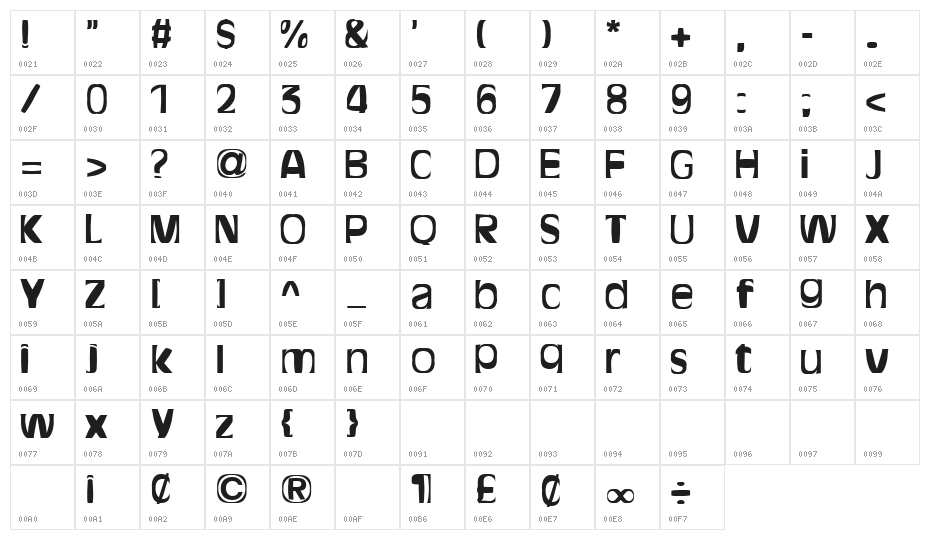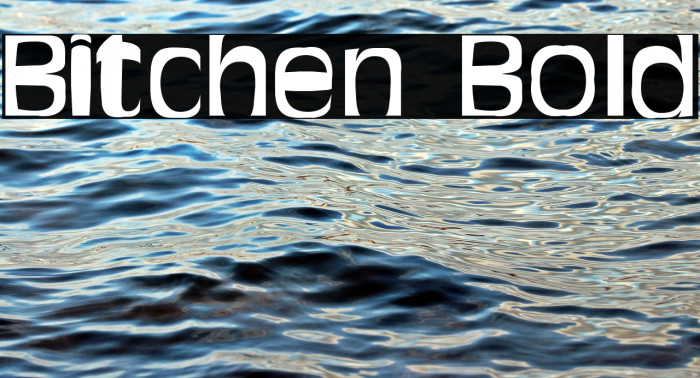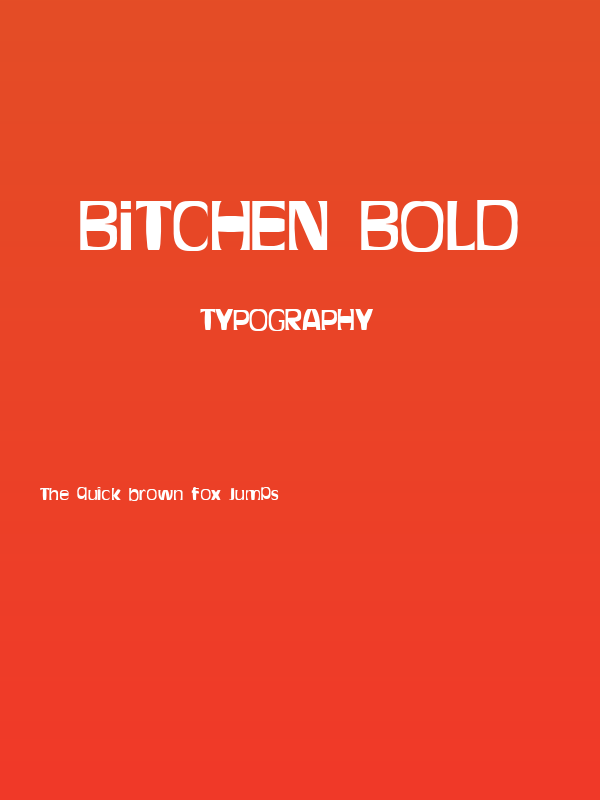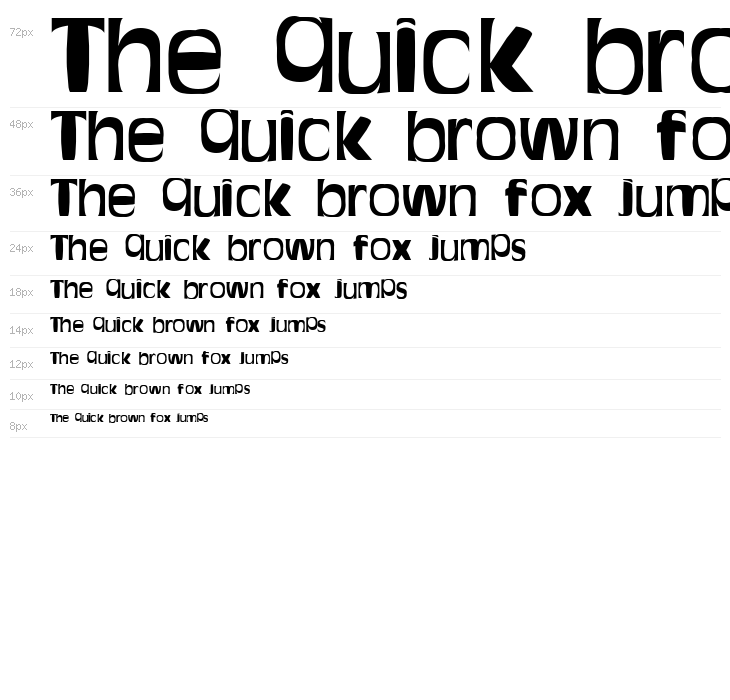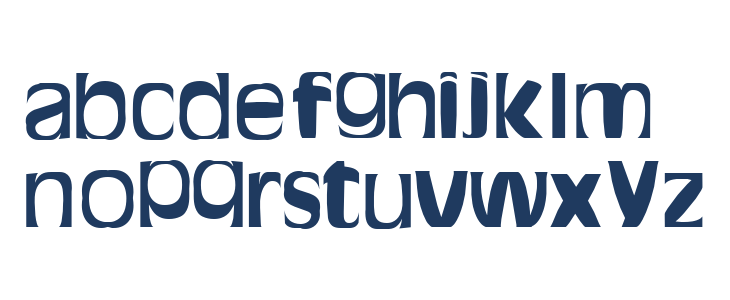
Bitchen Bold Font
Bitchen Bold Description
This font features a bold and dynamic style with a unique, slightly distorted appearance. The characters have a playful and energetic vibe, with varying stroke widths that create a sense of movement. The uppercase and lowercase letters maintain a consistent height, while the numbers and special characters are designed to match the overall aesthetic. The font's boldness and distinctive character shapes make it stand out, offering a modern and edgy look suitable for creative projects.